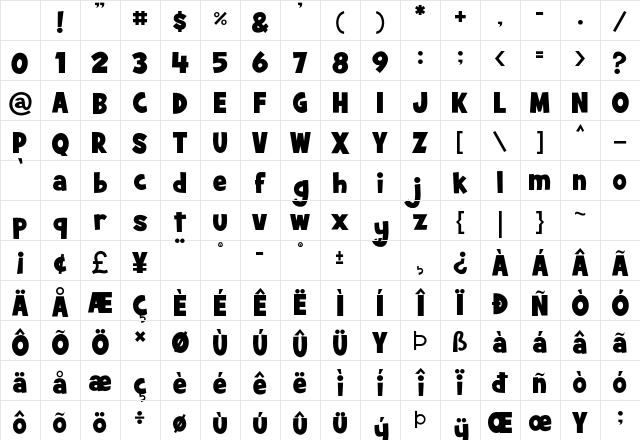
Complete Summer Blaster Regular glyph index. Displaying only characters natively supported by Summer Blaster Regular font.
Summer Blaster is a composed and adaptable typeface that performs quietly and consistently across a wide range of design contexts.